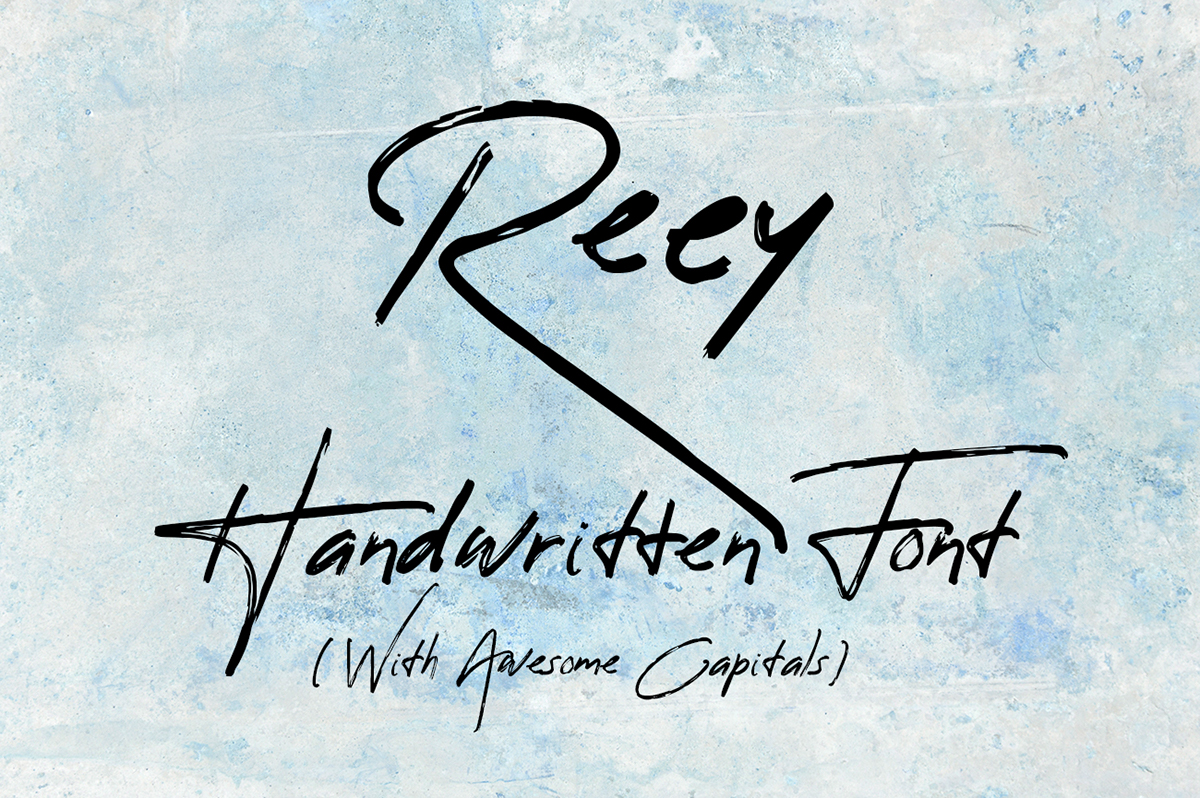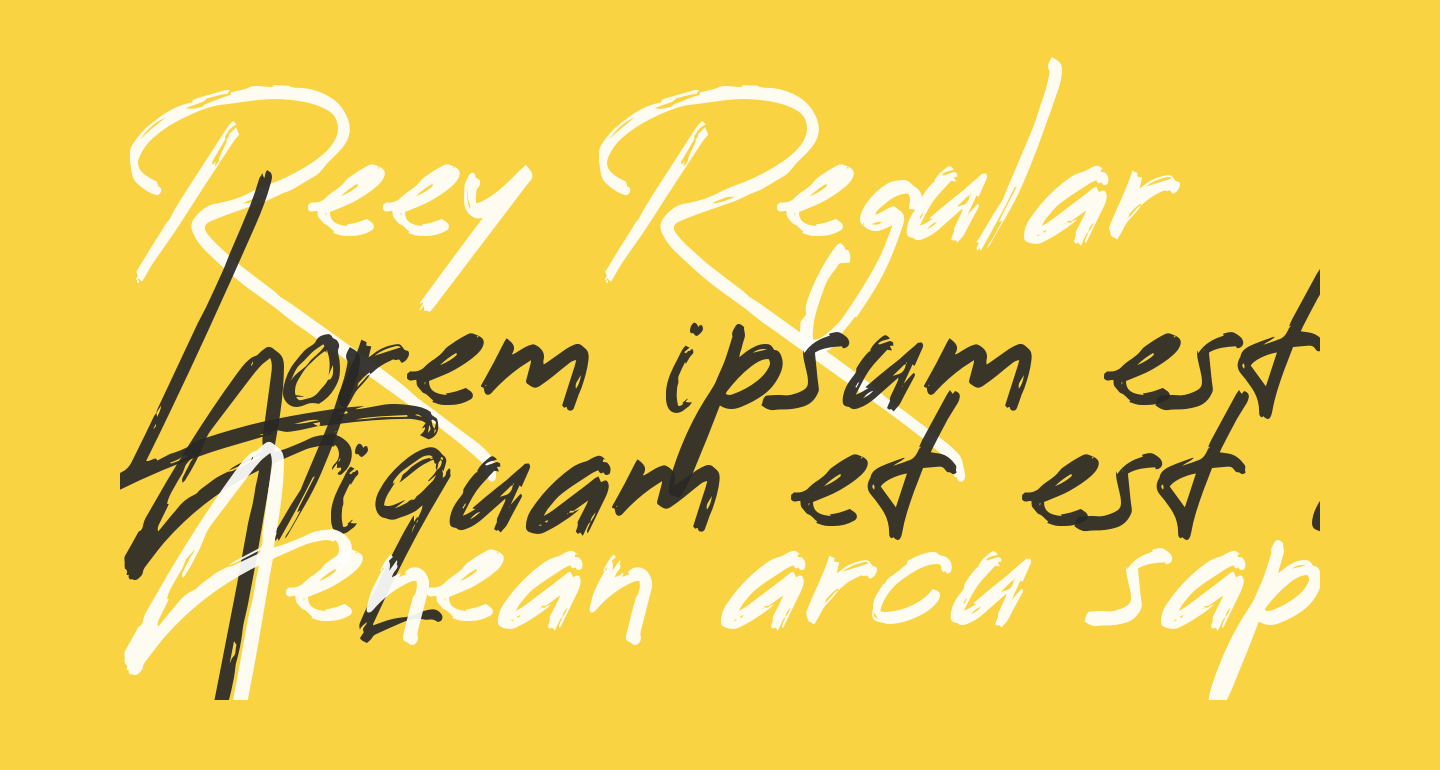
Incredible Reey Font 2023
Incredible Reey Font 2023. Type like a scribble on a small piece of paper! When it comes to realism, reey is your saviour.
Reey font is a free modern script hand brush typeface. Rye's bold attention getting shapes are useful for advertising. With lots of alt’s for a funky behaviour.
It's A Hand Brushed Script Created With A.
It’s a hand brushed script created with a. Reey, it is was designed and shares by koen van der bliek. Reey is a signature style font designed by koen van der bliek, that allows you to.
With Lots Of Alt’s For A Funky Behaviour.
When It Comes To Realism, Reey Is Your Saviour.
Web I Would Like To Introduce You To A New Font Brush.
Reey, it is was designed and shares by koen van der bliek. Rye is a medium contrast design inspired by posters using wood type. When it comes to realism, reey is.